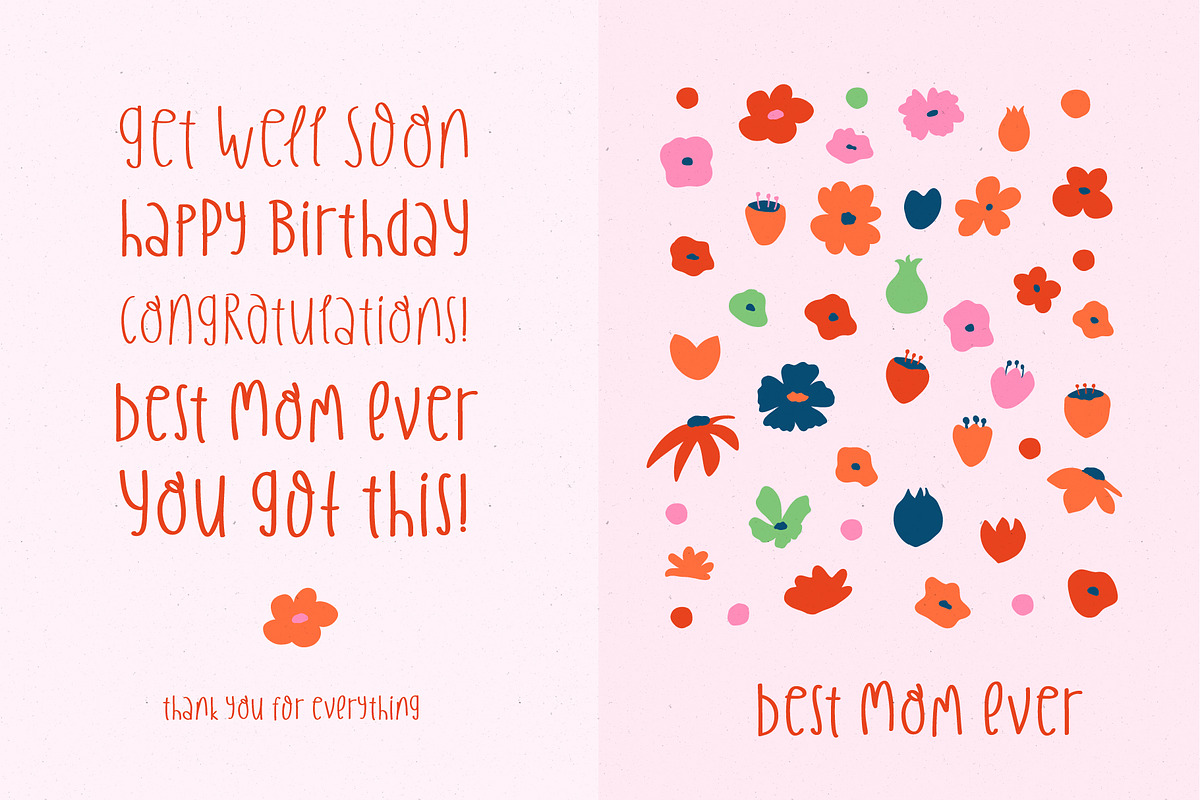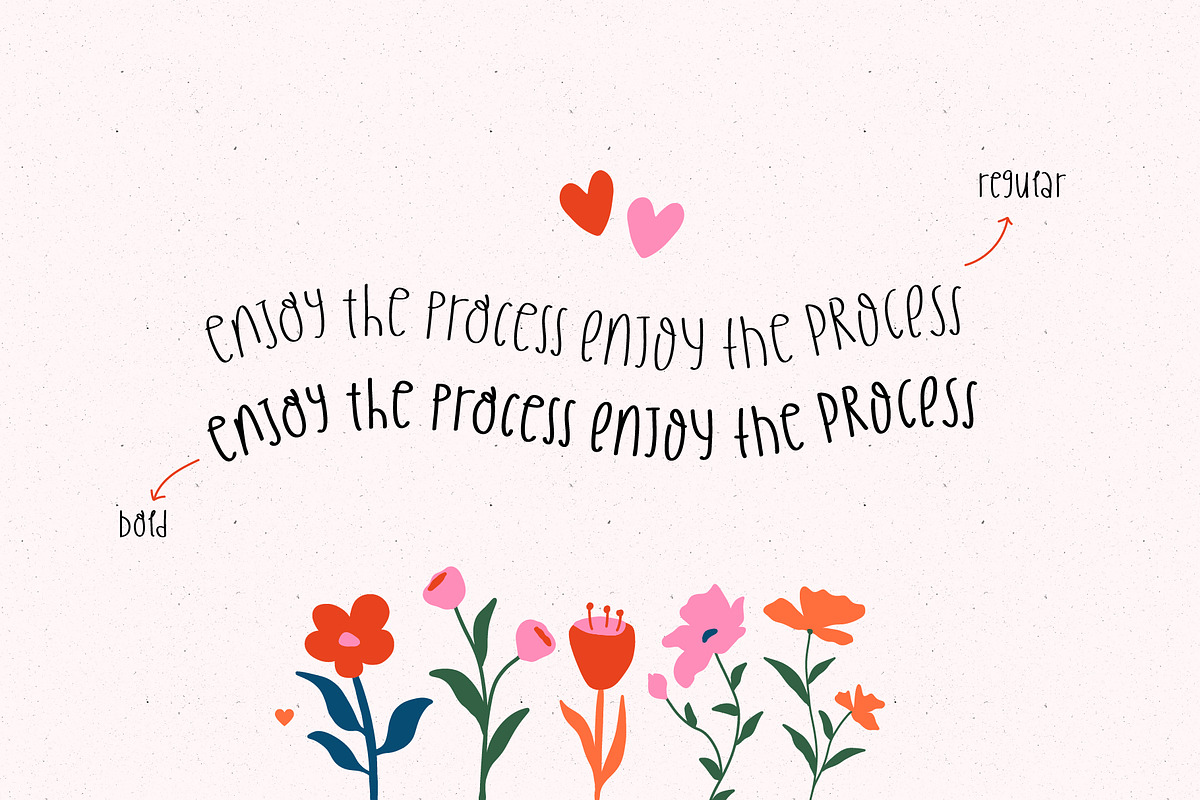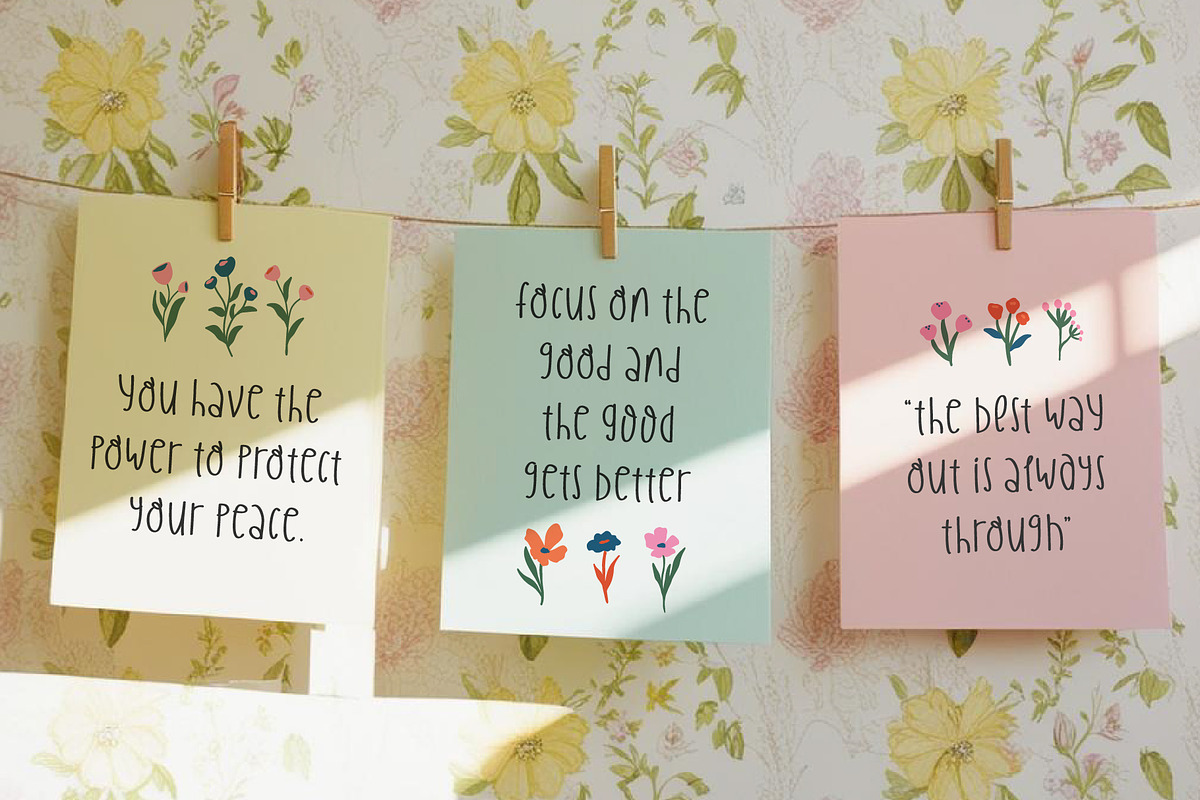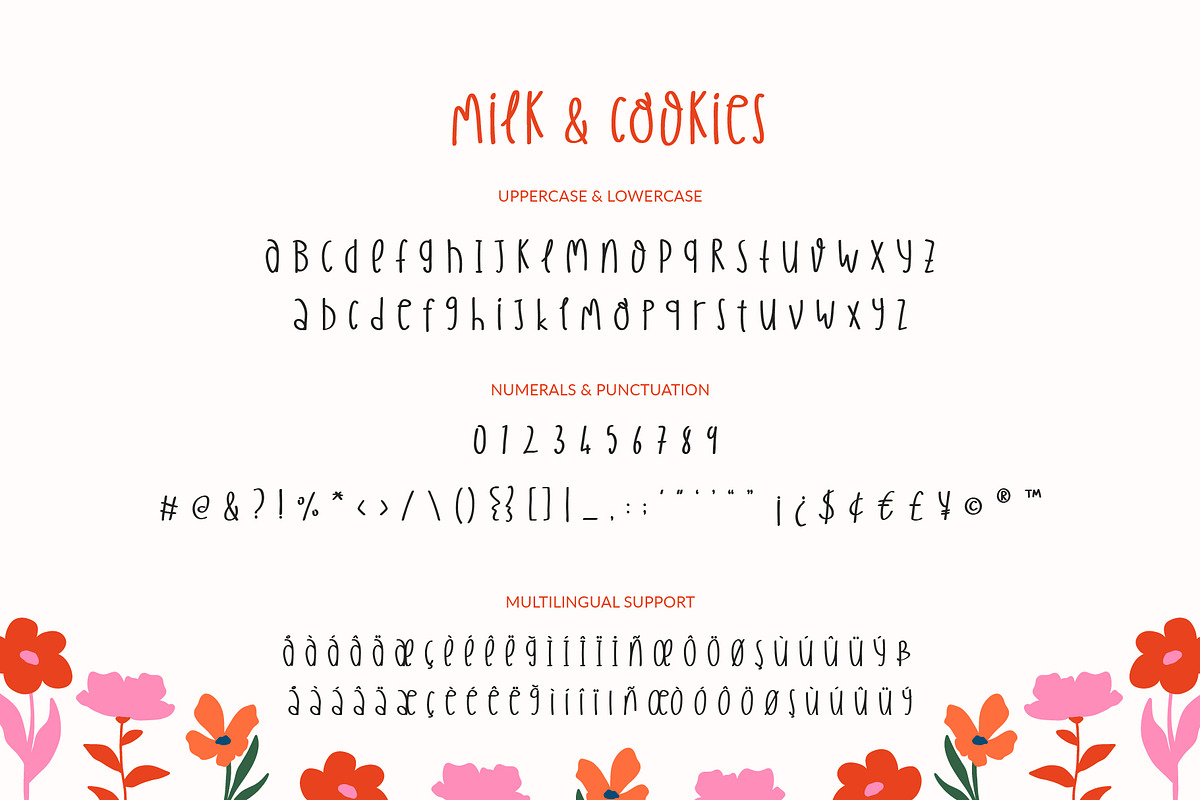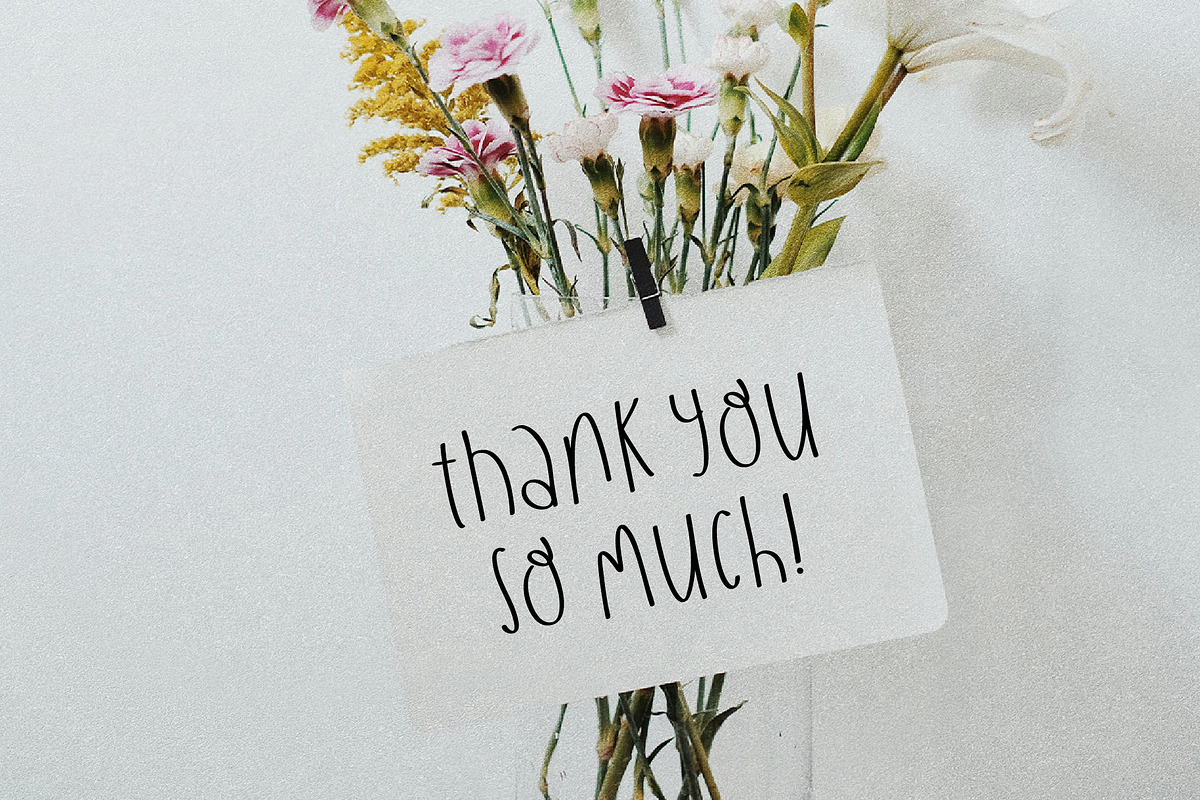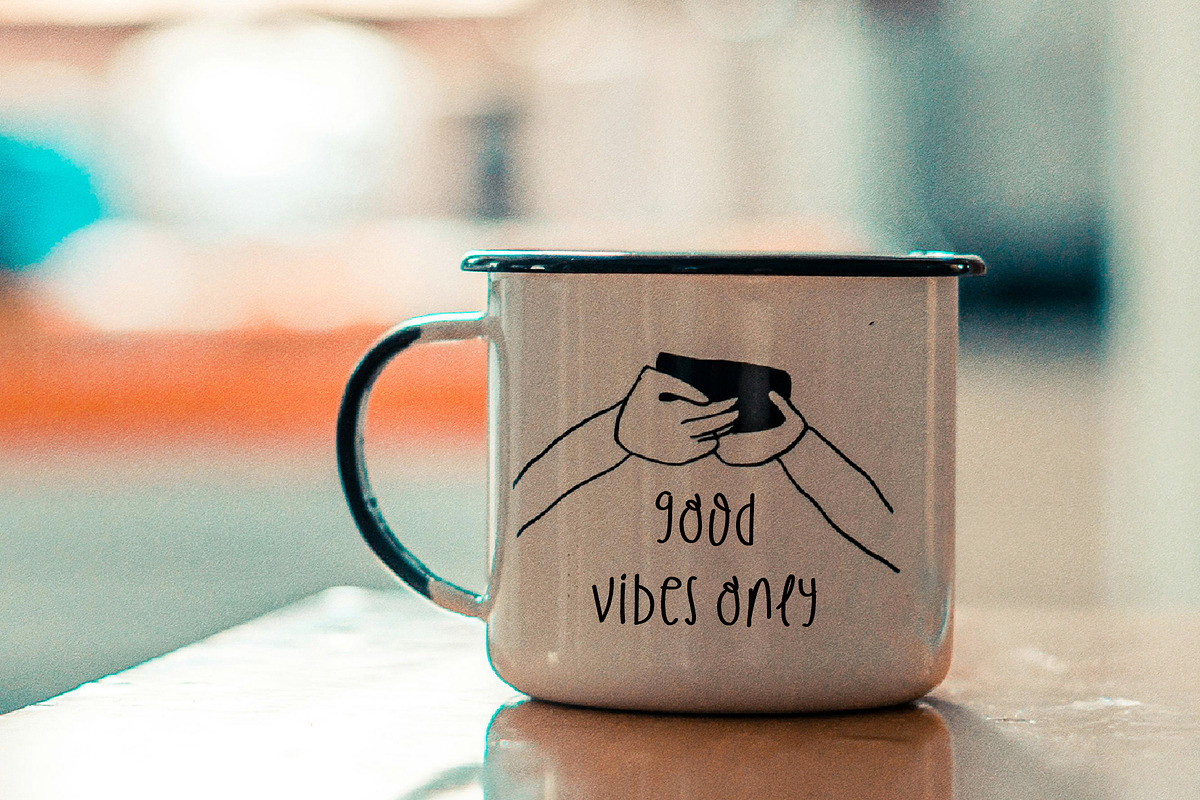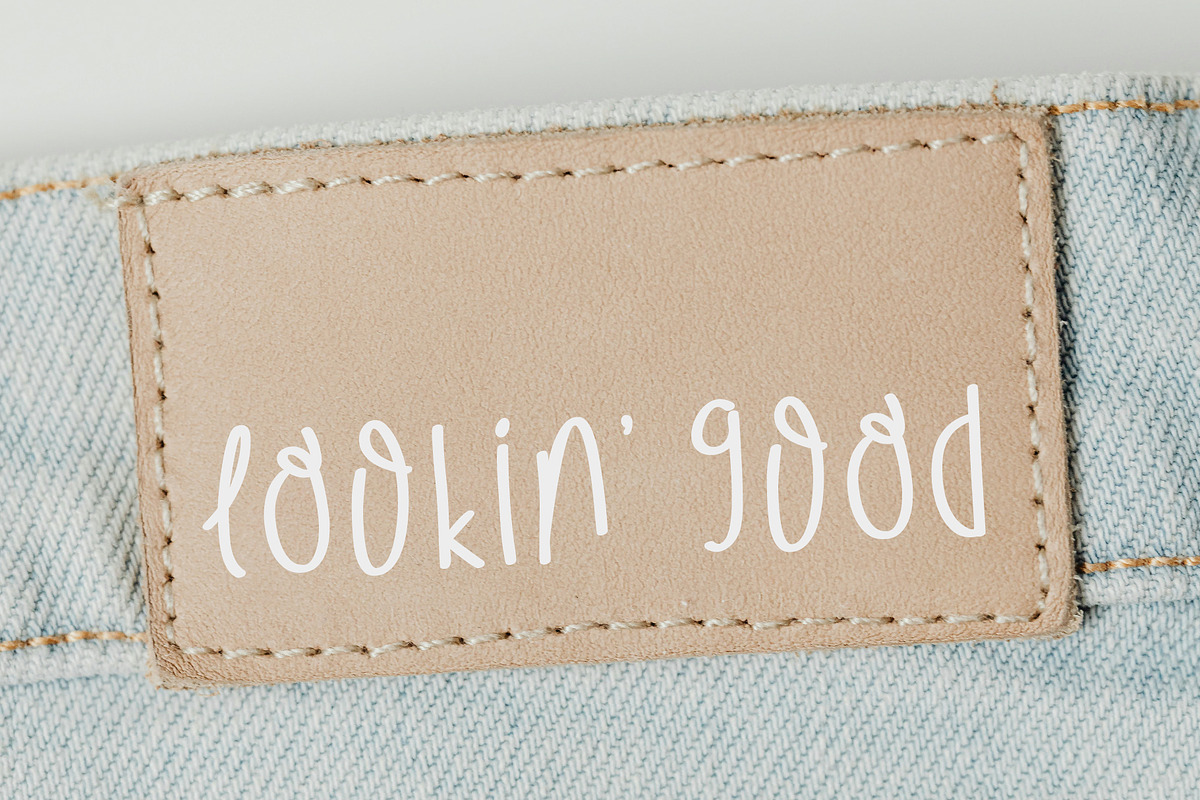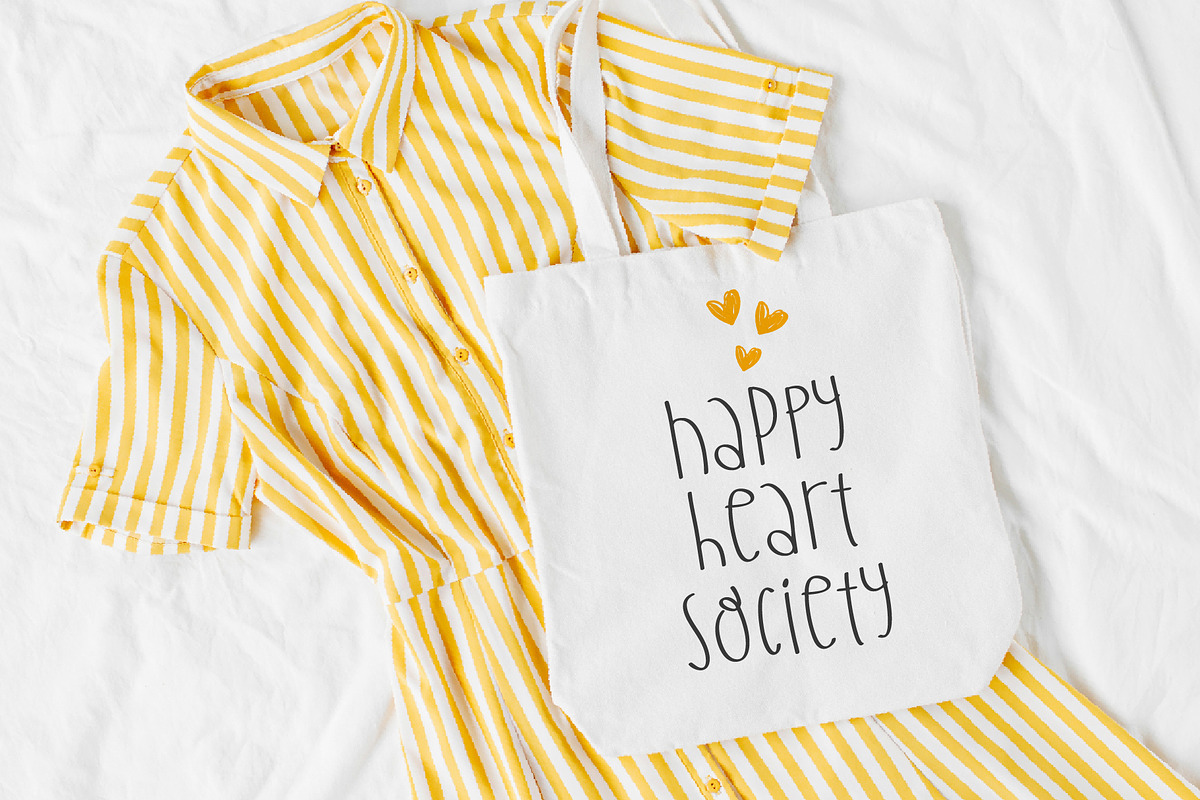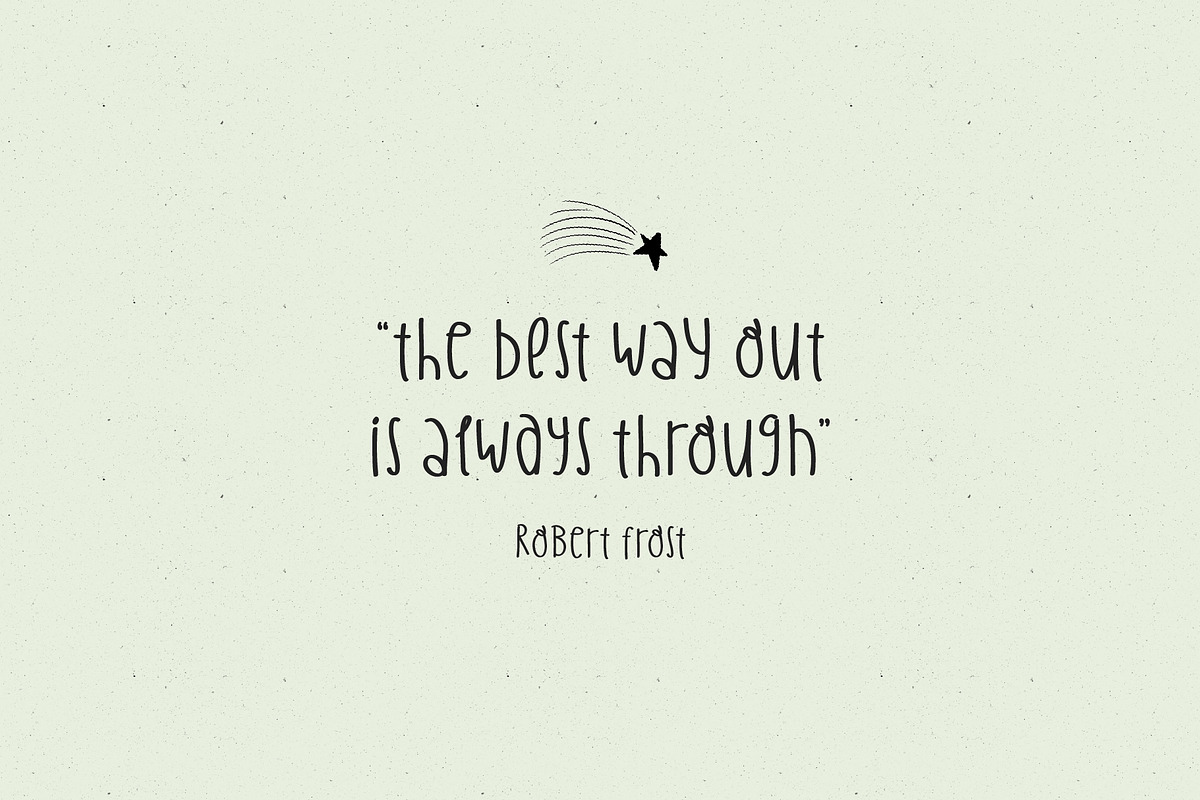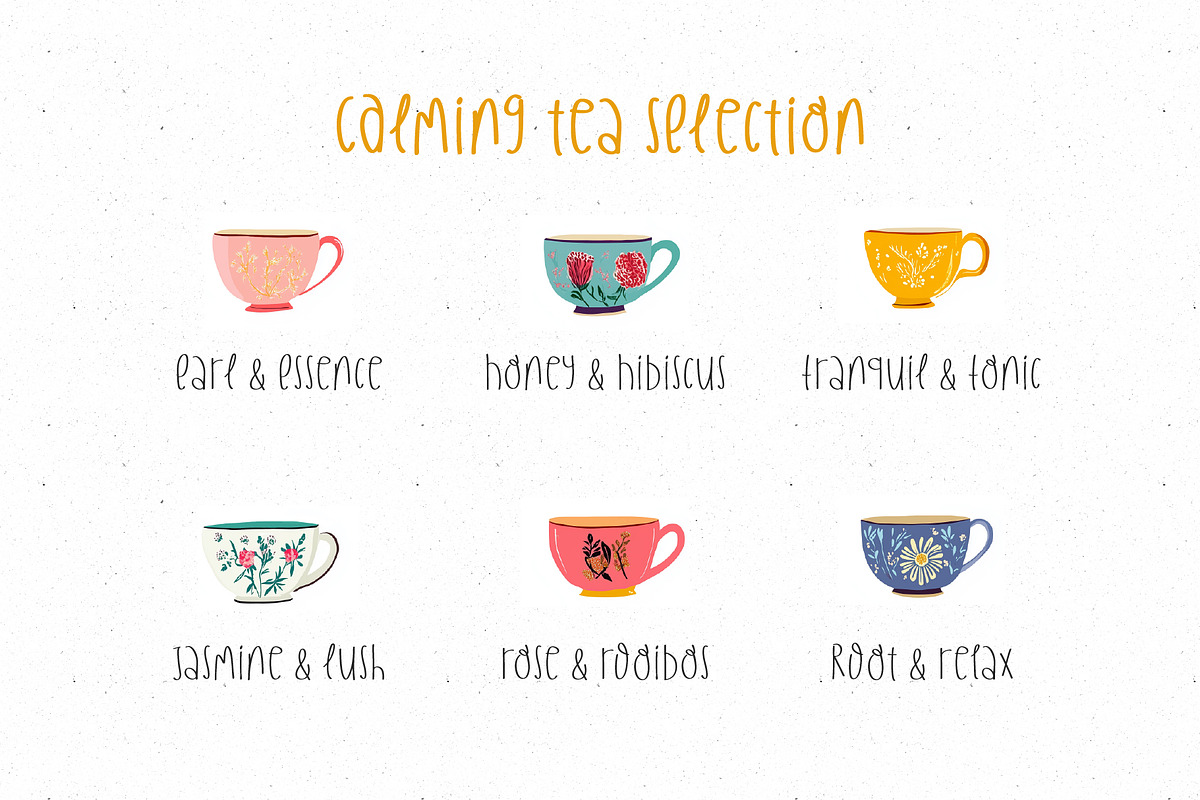
Quirky Handwritten Font Cute Flowers
Introducing our third Fonts and Flowers collection! A quirky handwritten font packed with a set of 120 naive floral illustrations. Perfect for adding a personal, creative touch to anything you’re working on—whether it’s invitations, craft projects, branding, or just some floral magic in your designs!
FONT FEATURES
• Cute handwriting style
• Mixed case character sets
• Standard characters (lowercase, uppercase, numbers, punctuation)
• Supported Languages: Danish, English, Filipino, Finnish, French, Friulian, Galician, German, Irish, Italian, Low German, Luxembourgish, Norwegian Bokmål, Norwegian Nynorsk, Spanish, Swedish, Swiss German, Turkish